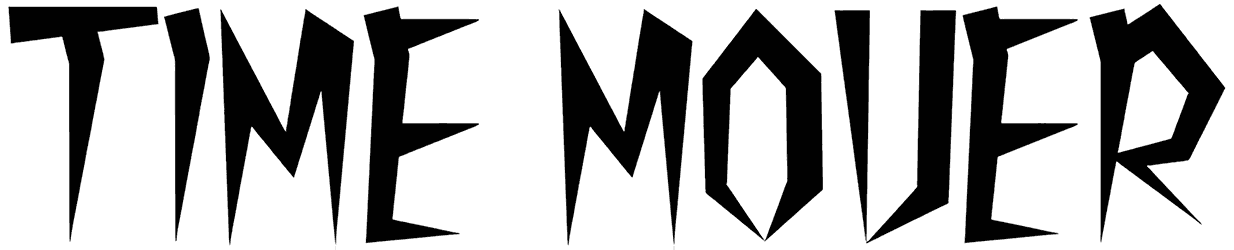
Time Mover Font
Time Mover is an excellent horror font that can help you in particular situations. This vampire font has a scary style, and you may use it for various cases, such as posters, movie titles, and video games.
Time Mover font’s letters are bold and have a geometric style, making it memorable to the viewers. Besides, their sharp edges look like swords, creating a new experience for the viewers. Download this well-designed artwork and it’ll suit you to a tee!